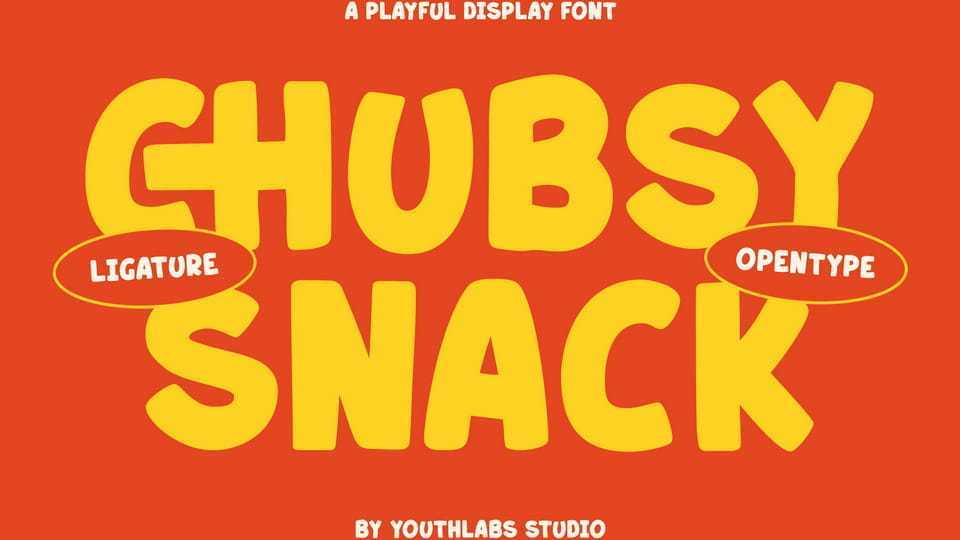
Download Chubsy Snack font, a playful chunky display typeface with rounded shapes and ligatures, perfect for food branding, snack packaging, kids designs, posters, and logos.
Designer: Youthlabs Studio